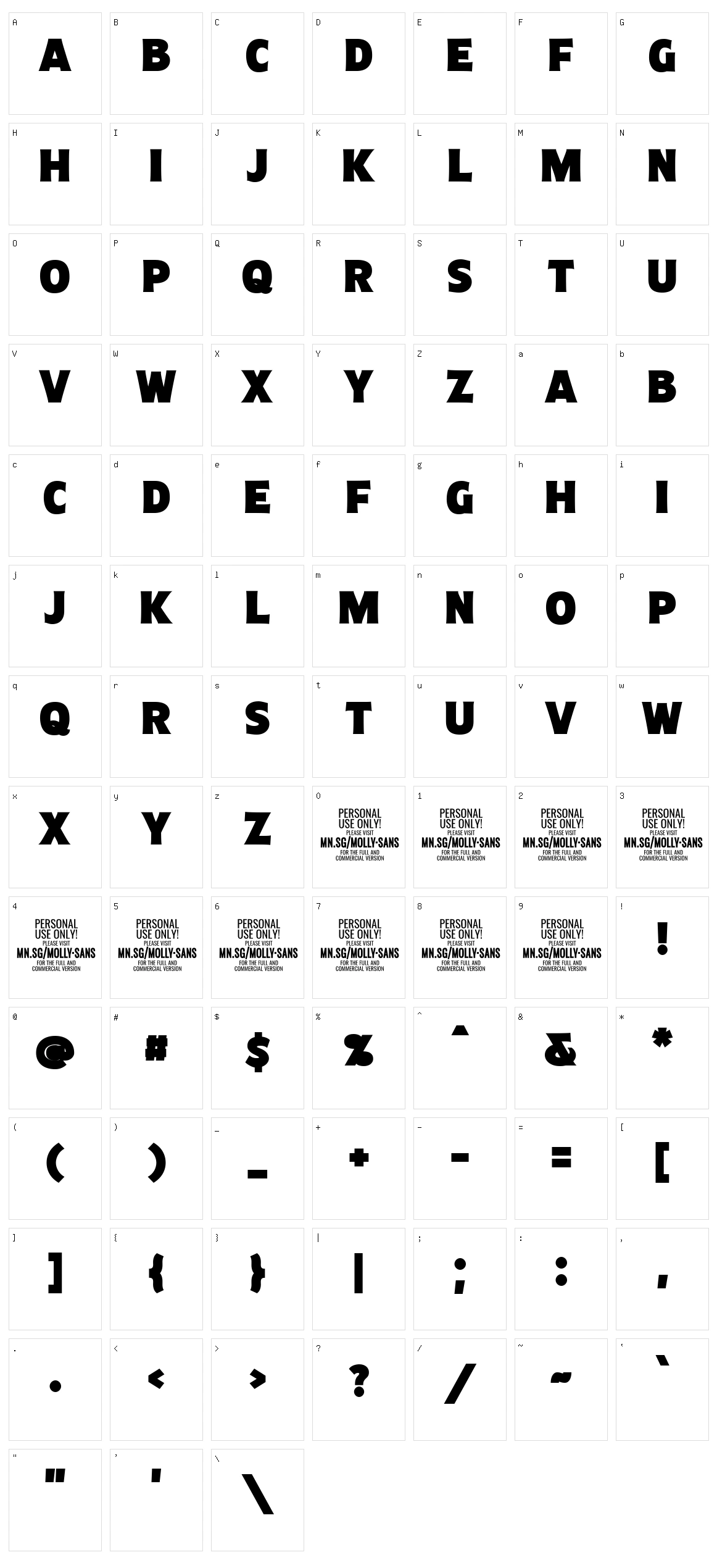
Molly Sans is a sans-serif family, drawn and created by Måns Grebäck between 2016 and 2019.
With an appearance similar to traditional sign painting, this all-caps typeface works great
in classic, genuine and crafty designs.
Stable and perfect for stacked type settings, Molly Sans is used for headers and titles
meant to grab the attention of the observer.
The font family includes 25 (!) styles, from Extra-Condensed Thin to Extra-Expanded Black.
The many style options allows for very high flexibility and real customization.
XC = Extra-Condensed
C = Condensed
N = Normal
E = Expanded
XE = Extra-Expanded
Each style goes well with the other styles, or contrasts nicely with any script typeface.
Molly Sans contains a wide range of international glyphs and characters, and supports
all European, Latin-based languages.